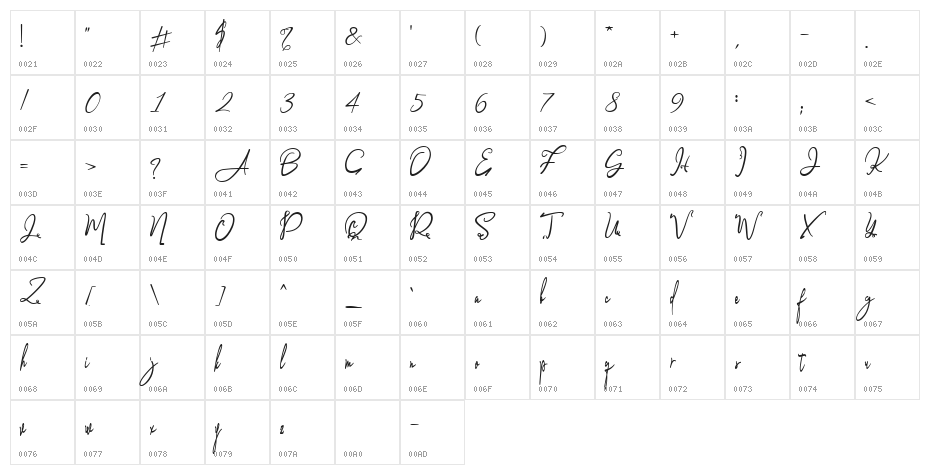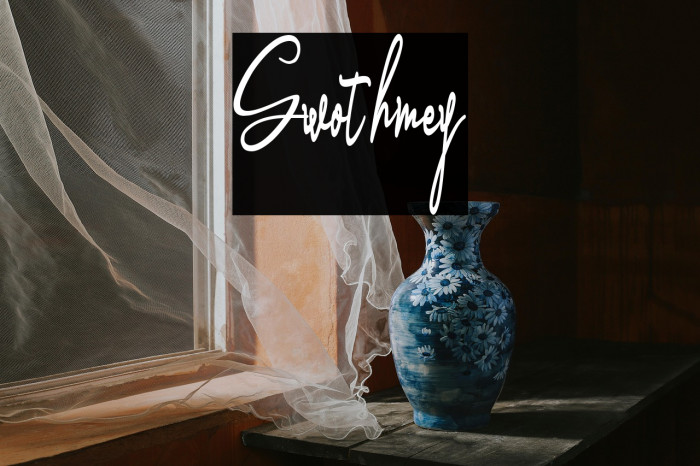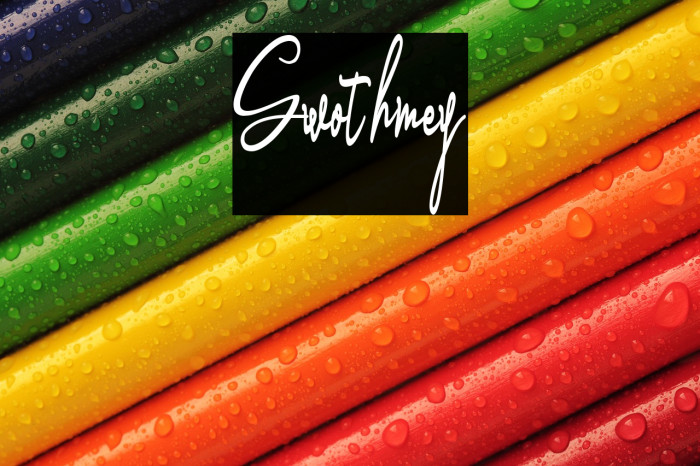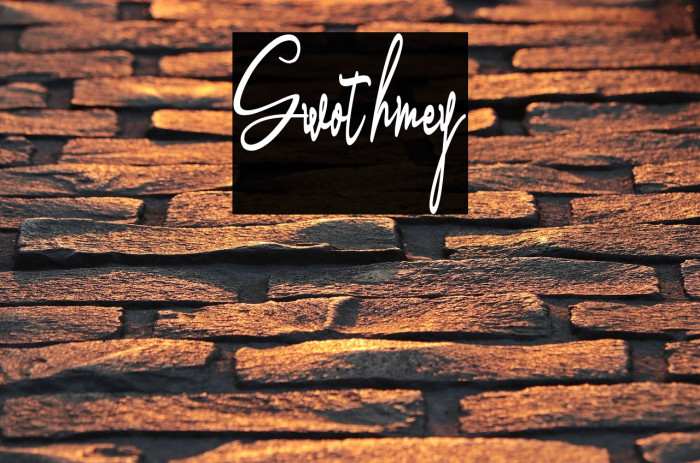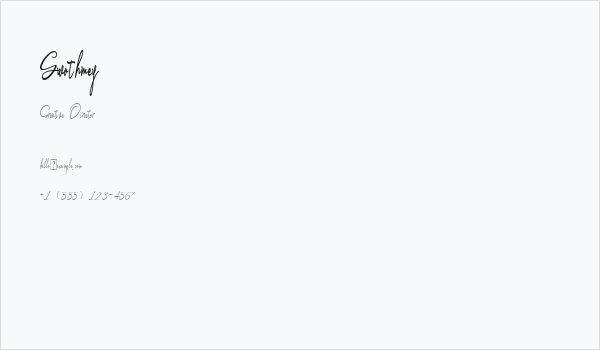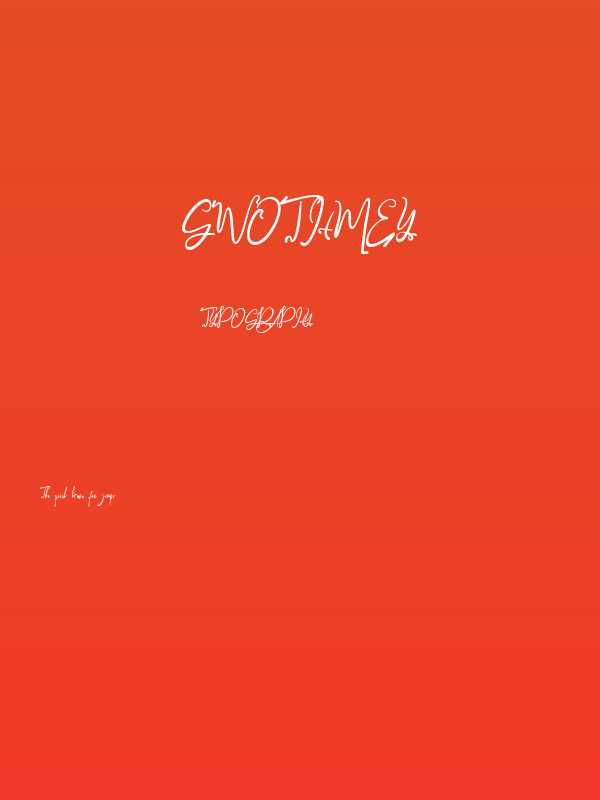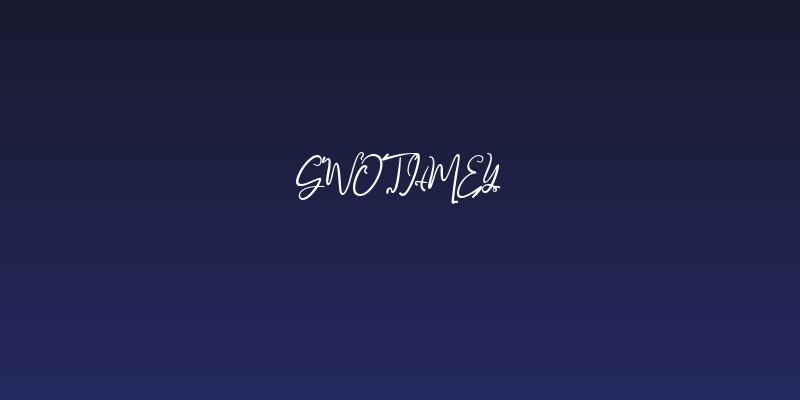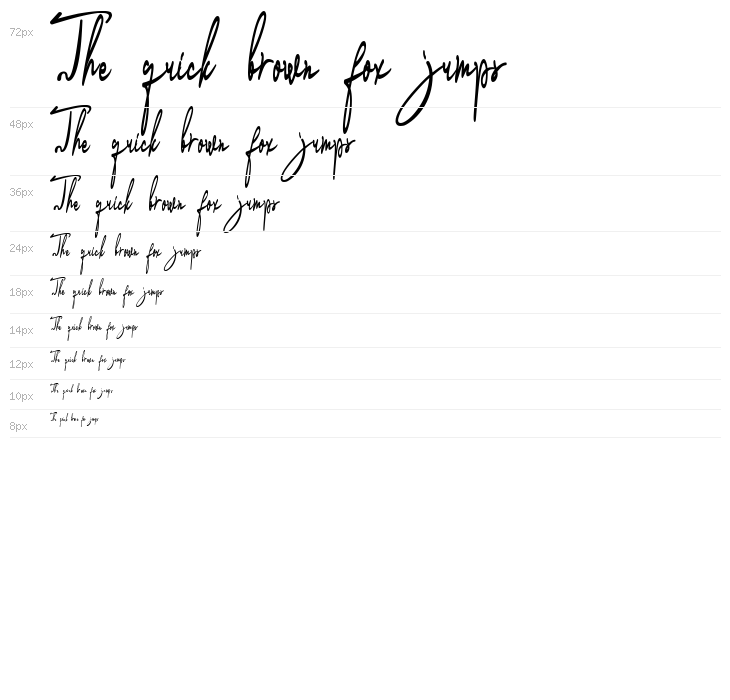
Gwothmey Font
Gwothmey Description
This font exudes elegance and sophistication with its flowing, cursive style. The uppercase letters are adorned with intricate swirls and loops, giving them a decorative flair that captures attention. The lowercase letters maintain a consistent cursive form, enhancing readability while retaining an artistic touch. Numbers are styled to match the overall aesthetic, ensuring a cohesive look across all characters. Special characters are thoughtfully designed, integrating seamlessly into the font's elegant theme. This font is perfect for projects that require a touch of class and creativity, such as invitations, branding, and artistic designs.
| Proposed Projects | Ideal for wedding invitations, branding, artistic projects, and elegant designs. |